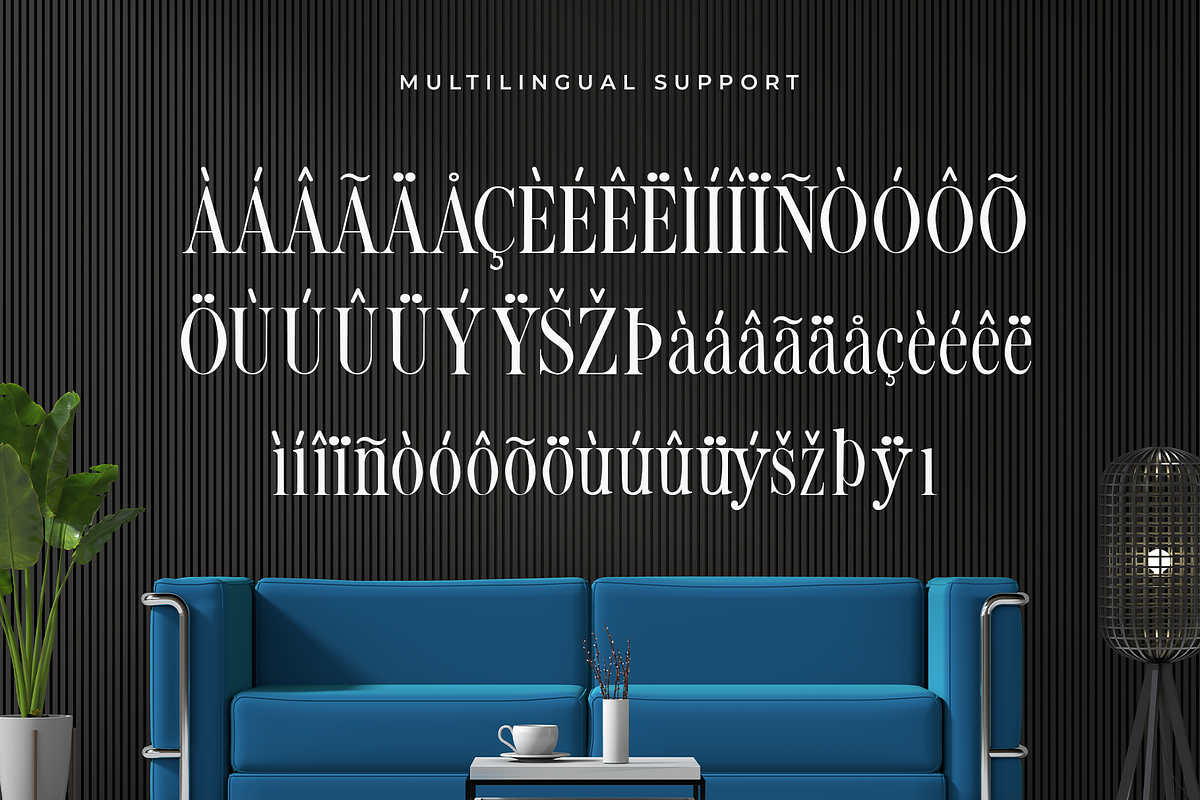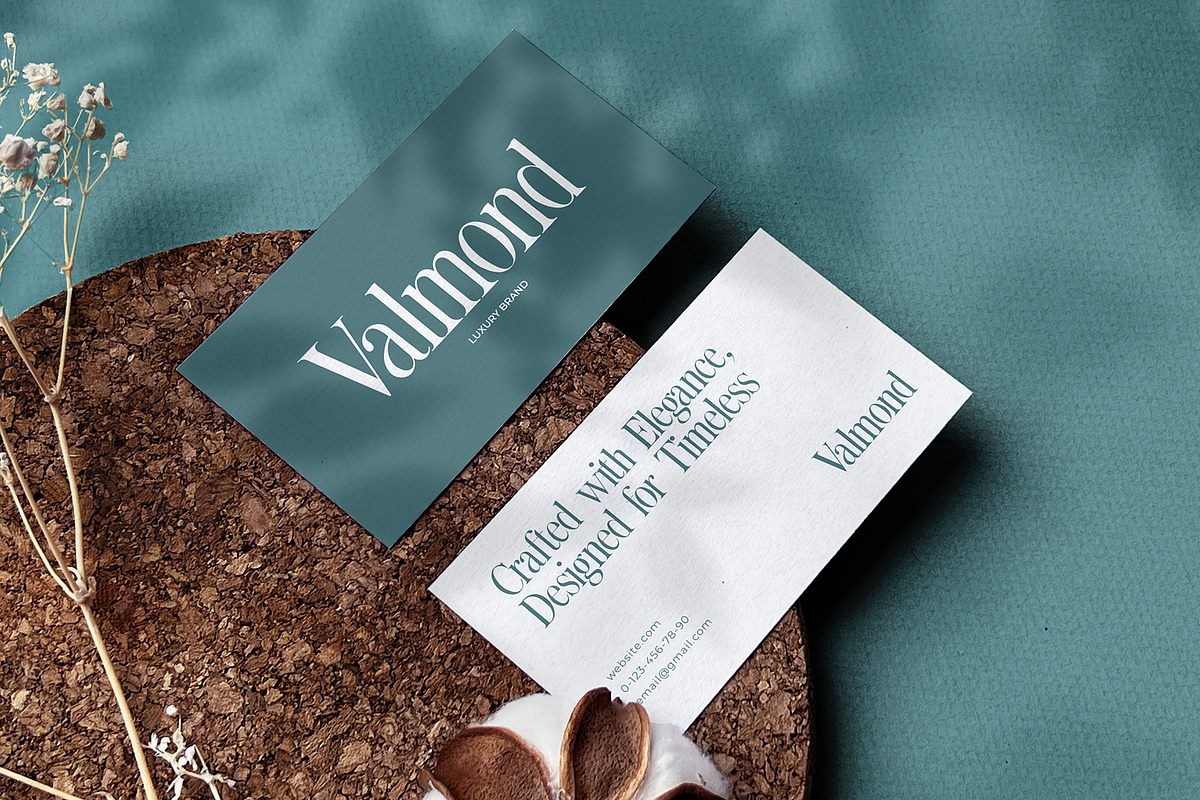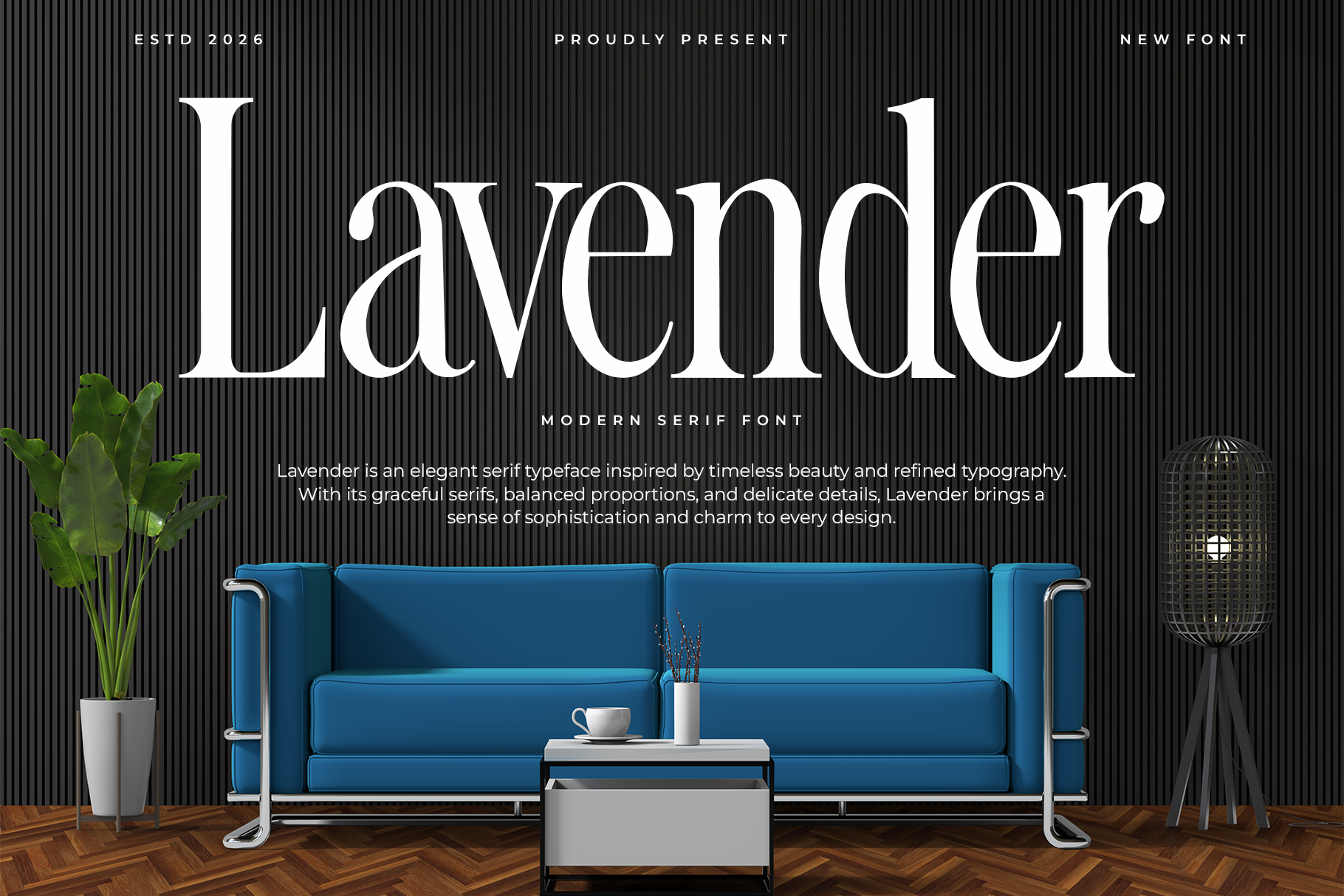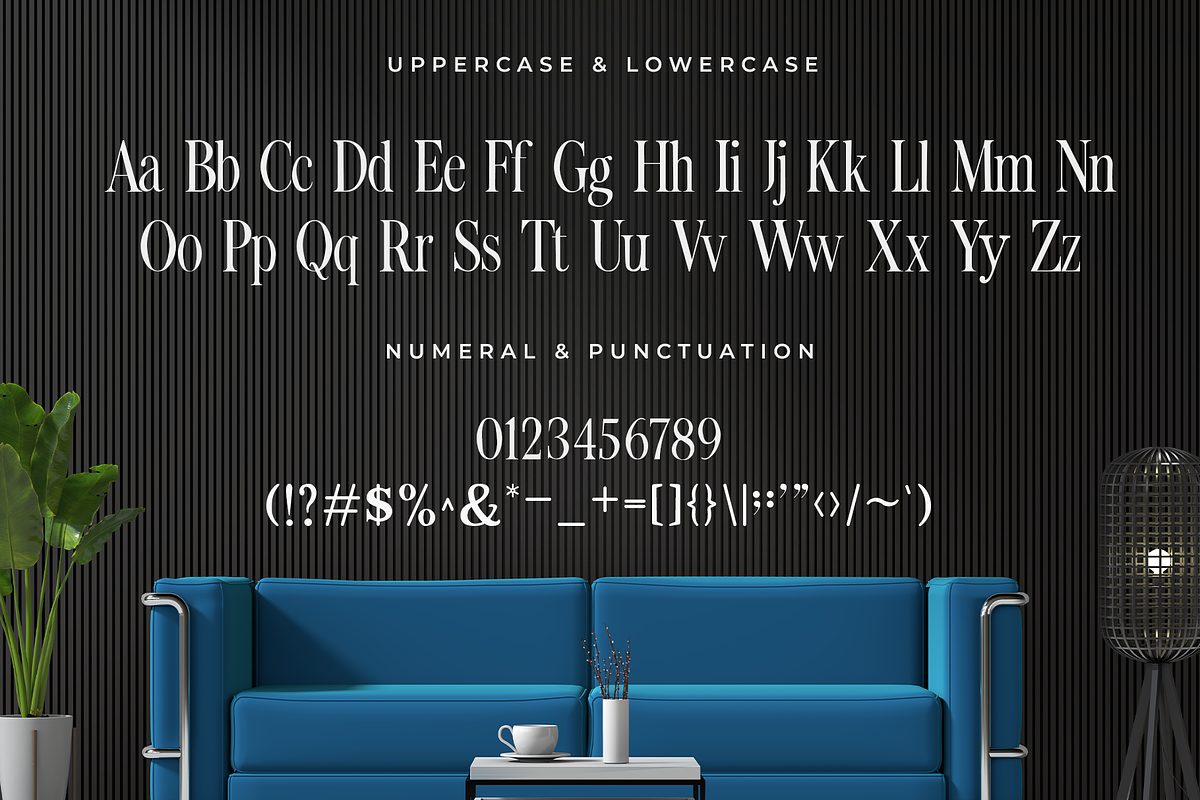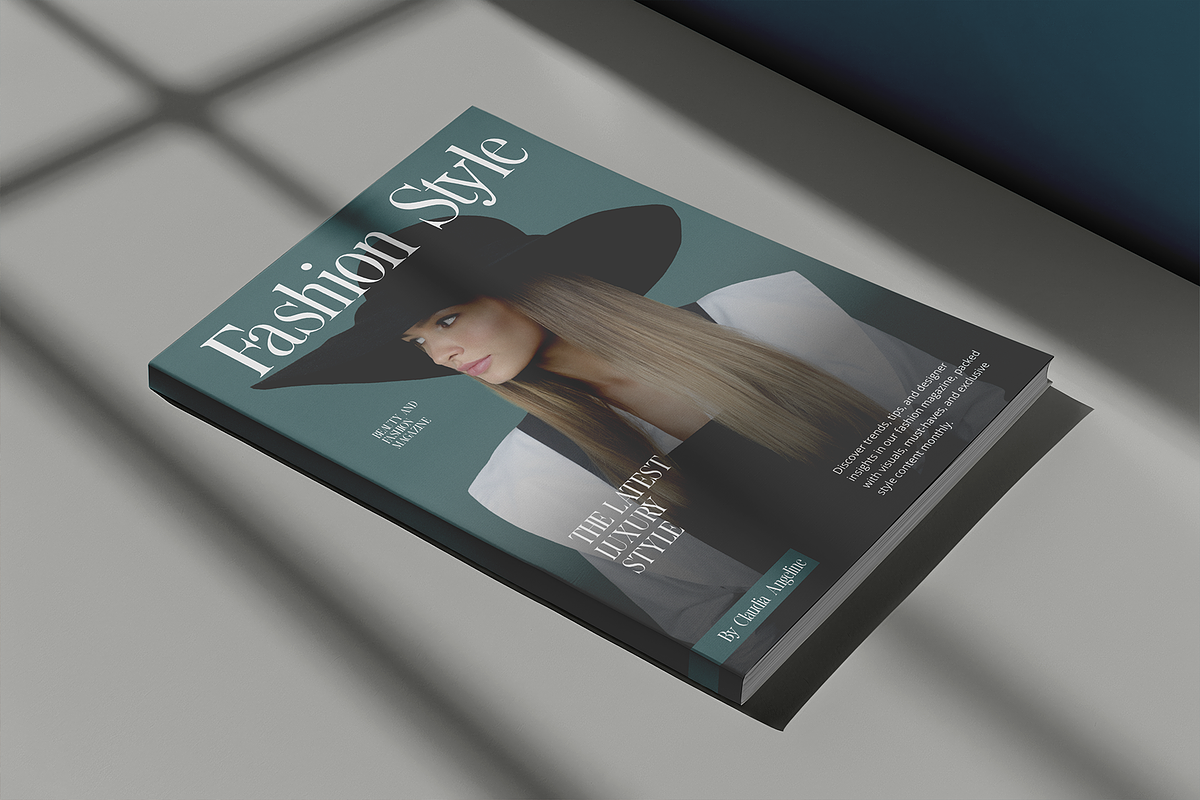
Lavender – Modern Serif Font
Lavender is a modern serif font that beautifully blends classic elegance with contemporary refinement. Designed with delicate serifs, balanced proportions, and graceful letterforms, Lavender delivers a sophisticated and timeless aesthetic suitable for premium design projects.
Perfect for branding, fashion editorials, beauty packaging, wedding invitations, luxury logos, magazines, and social media design, Lavender brings a soft yet confident typographic presence. Its elegant structure ensures excellent readability while maintaining a stylish and refined character.